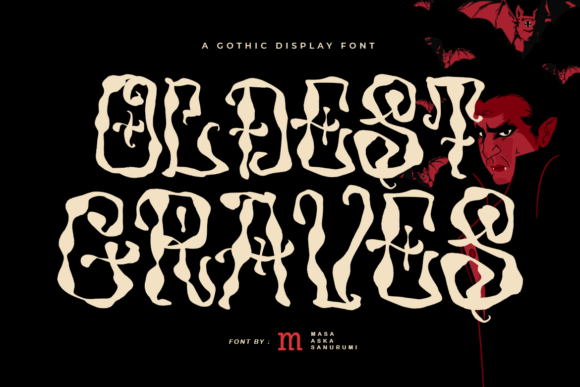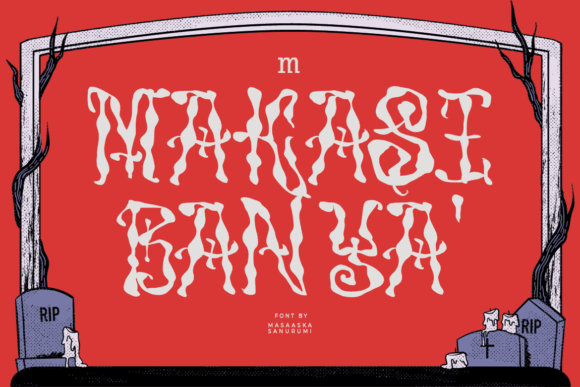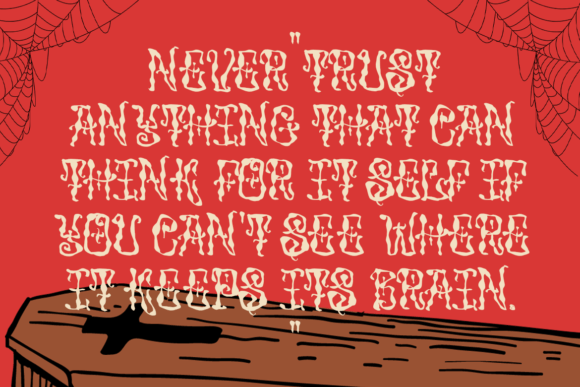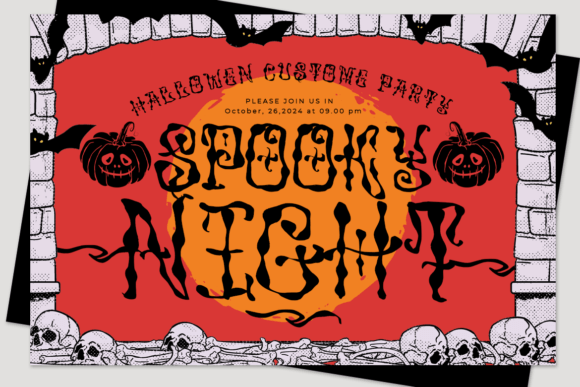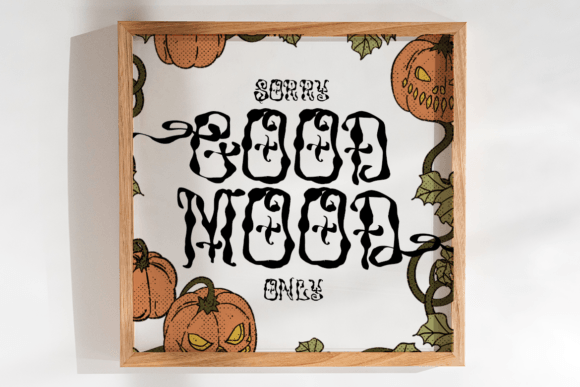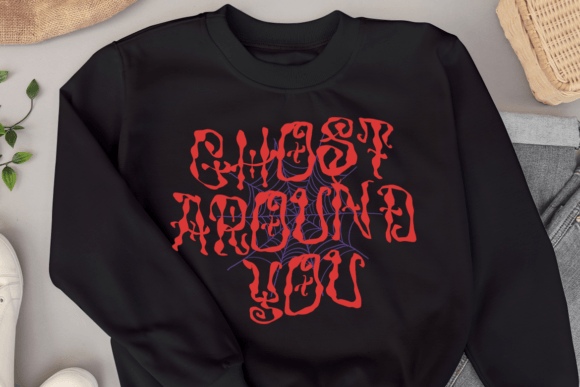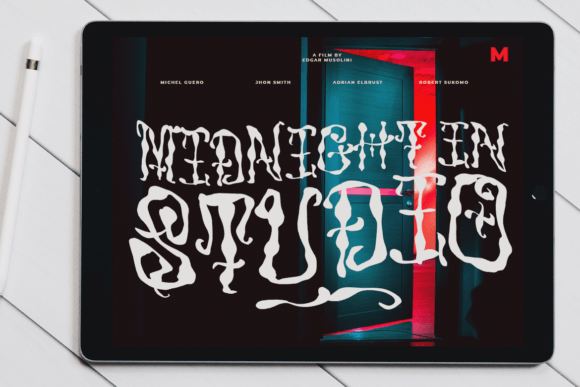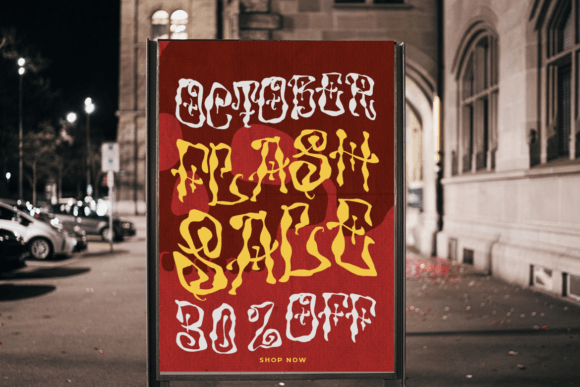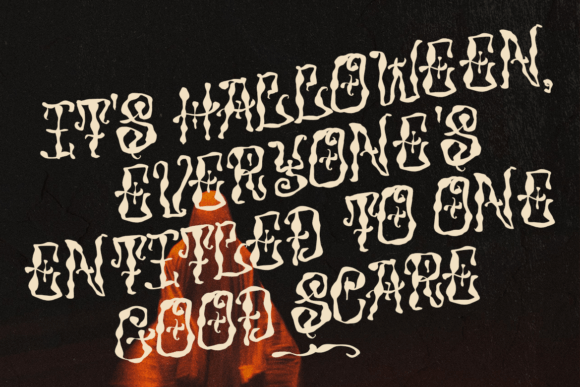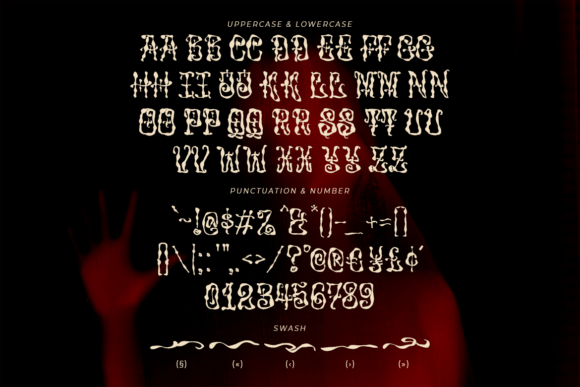
Oldest Graves Font
“Oldest Graves” is an incredibly unique and intriguing display font that adds a touch of spookiness and creepiness to your designs. This font’s distinct and unconventional style makes it stand out, ensuring that your designs will leave a lasting impression.
The charm of “Oldest Graves” lies in its unique and intriguing lettering. Its spooky and slightly creepy characters create a visually captivating and unconventional experience, making it an ideal choice for projects that aim to convey a sense of mystery and uniqueness.
One of the standout qualities of “Oldest Graves” is its ability to make your designs stand out from the crowd. Whether you’re using it for creative projects, branding, posters, or any other application where you want to grab attention, “Oldest Graves” brings a sense of individuality to your work.
This font’s dedication to adding a unique and intriguing quality to your designs sets it apart. Whether you’re working on personal or professional endeavors, “Oldest Graves” brings a distinctive and unconventional touch to your work that resonates with a diverse audience.
In summary, “Oldest Graves” is more than just a font; it’s a unique and attention-grabbing creative tool that can make your designs stand out. Whether you’re a professional designer or an enthusiast passionate about creative expression, “Oldest Graves” is here to add a touch of spookiness and intrigue to your work. Embrace the uniqueness of “Oldest Graves,” and watch your designs leave a lasting impression.